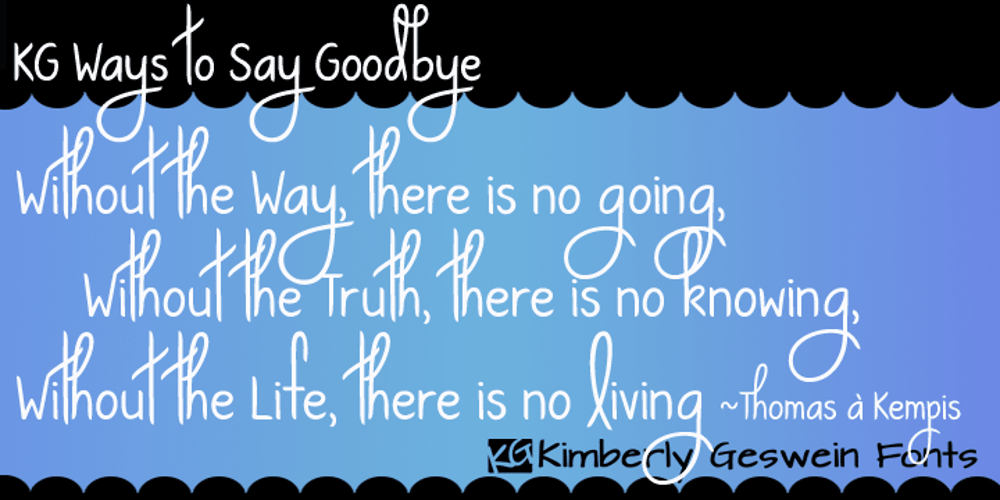
KG Ways To Say Goodbye Font Family was designed by Kimberly Geswein and published by Kimberly Geswein. KG Ways To Say Goodbye contains 1 styles and family package options. This unique handwriting font features extremely tall, loopy descenders and ascenders. The capitals, when used by themselves, offer a totally different look.